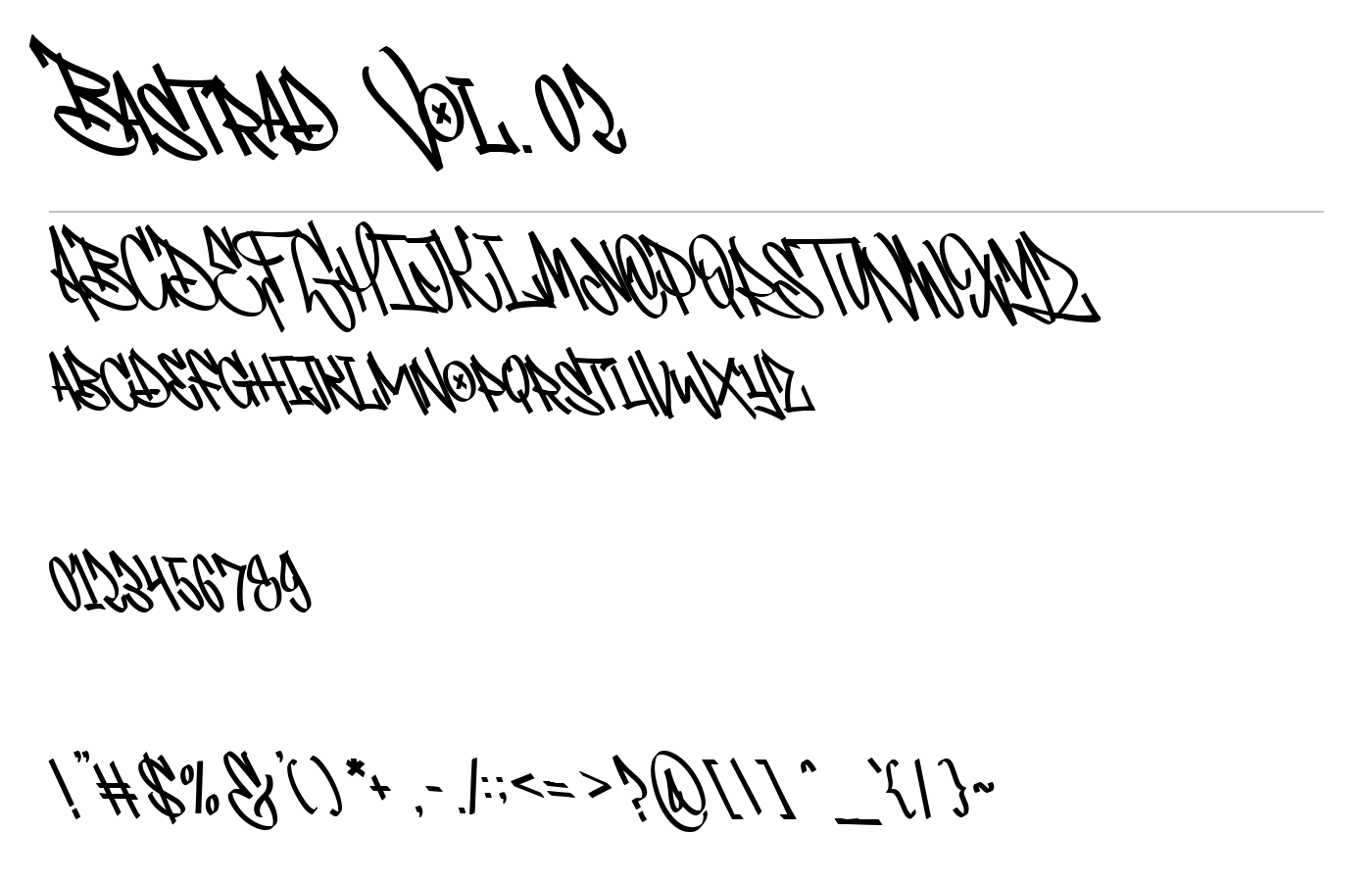
Bastrad Vol.02 is a bold, expressive graffiti-style font featuring sharp, angular strokes and highly stylized letterforms that capture an urban, edgy vibe. Its irregular, energetic shapes and tight spacing make it ideal for creative streetwear branding, posters, and any project seeking a rebellious, dynamic look. This font works best in headline or display use where its unique personality can truly stand out.